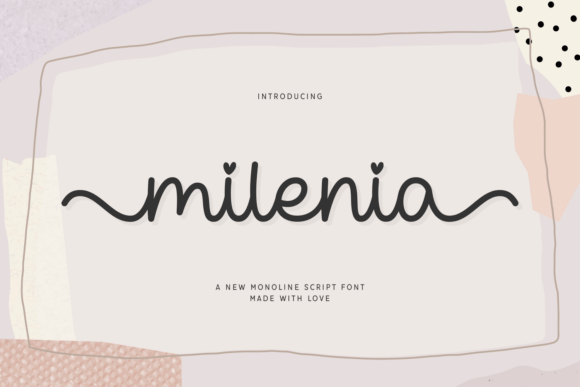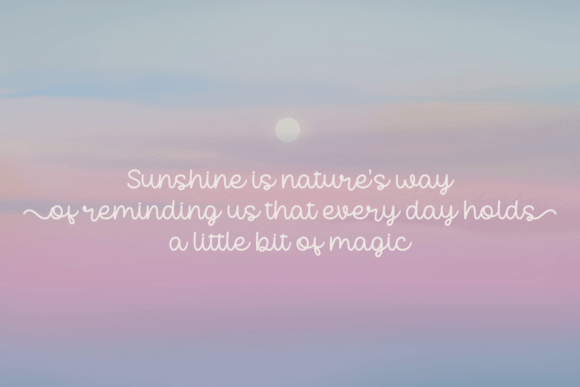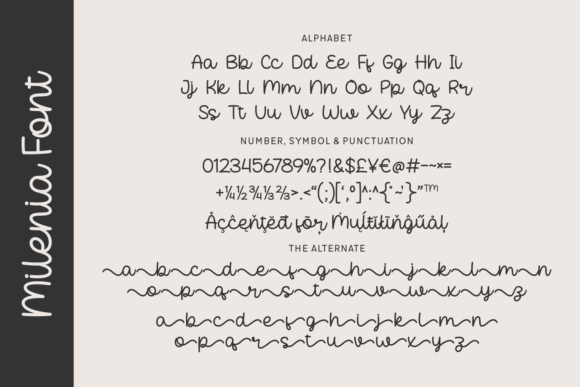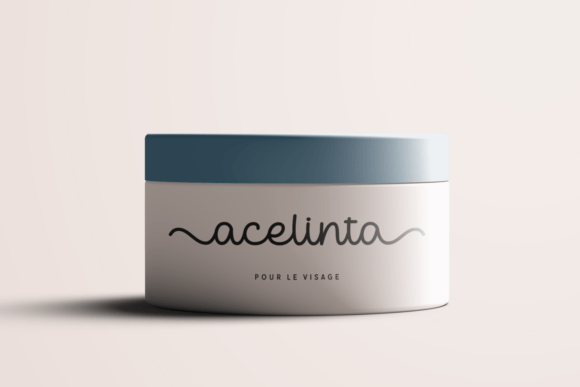
Milenia Font: Cute Script for Minimalist Logo Design & Social Media
About the Milenia Font
The Milenia Font is here to transform your projects with its distinctive character and style. Milenia is a delicate monoline script font featuring minimal yet expressive curves and lovely heart dots. Its simplicity makes it a go-to for journaling, stationery, social media, and minimalist logos.
Milenia’s delicate nature makes it ideal for projects requiring a touch of elegance and femininity, such as wedding invitations, branding for beauty products, or packaging for handcrafted goods. Its limited x-height, however, makes it unsuitable for extended body text or UI elements where readability is paramount.
For optimal visual impact, pair Milenia with a clean sans-serif like Lato for a modern feel, or a classic serif like Garamond for a more traditional aesthetic. A geometric sans-serif, such as Montserrat, could also provide a pleasing contrast to Milenia’s organic curves.
Milenia’s overall personality is best described as softly elegant and romantic, lending itself to brands that project a sense of refined simplicity and subtle charm. Avoid pairing it with bold or overly playful fonts that might overwhelm its delicate features.
Milenia Font Usage Examples
Milenia Font Example